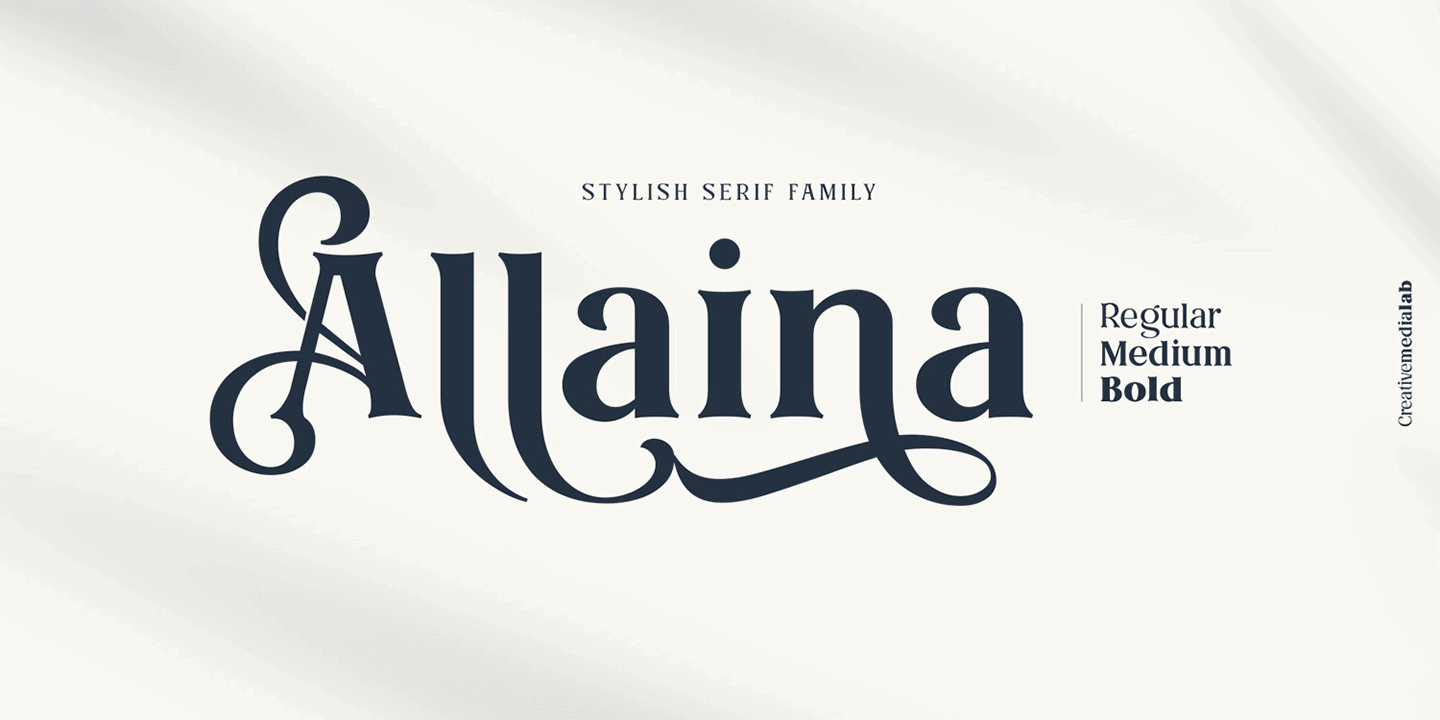
Allaina Font is perfect for elegant lifestyle brands, sophisticated beauty products, premium fashion labels, upscale wellness centers, refined personal coaching, luxury stationery, graceful event planning, and contemporary feminine businesses that require sophisticated typography with modern elegance and refined beauty that communicates premium quality and authentic sophistication.
What makes Allaina Font exciting is its extraordinary balance of contemporary sophistication and timeless feminine elegance through carefully refined letterforms that radiate confidence and grace. This captivating typeface features smooth curves and modern proportions that celebrate sophisticated femininity while maintaining professional credibility, making it ideal for brands targeting discerning women who value both style and substance.
The Allaina Font family includes light, regular, medium, and bold weights, complemented by elegant italic variations for enhanced expressive flexibility. Each style maintains the font's characteristic sophisticated charm while providing designers with comprehensive tools for creating refined layouts and premium brand communications that elevate feminine elegance to professional standards.
Luxury professionals consistently choose Allaina Font Free Download for projects requiring contemporary sophistication and refined feminine appeal. This versatile typeface seamlessly conveys premium quality while maintaining excellent readability, ensuring brand messages resonate with audiences seeking sophisticated experiences and premium products that honor both modern innovation and timeless elegance.
The font's contemporary sophistication and refined character make it particularly suitable for beauty and luxury sectors. Allaina Font delivers exceptional elegant impact while ensuring clear communication, offering designers a premium solution for creating memorable brand identities that communicate sophistication, refinement, and contemporary excellence across luxury and feminine marketing applications.